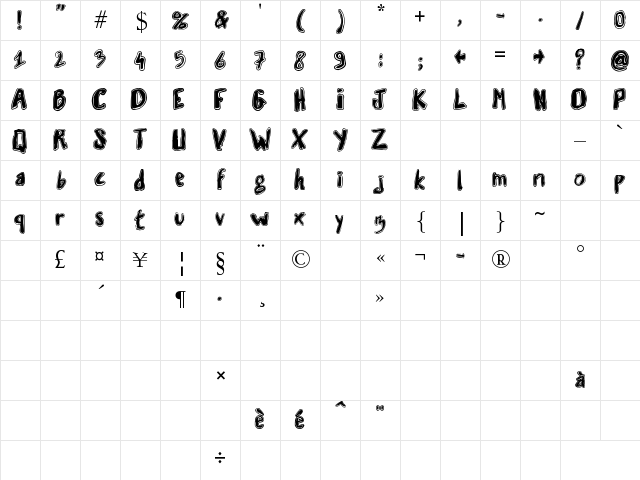
Vaille Regular
Vaille Family
Design Context for Vaille
Vaille is a composed and adaptable typeface that performs quietly and consistently across a wide range of design contexts.